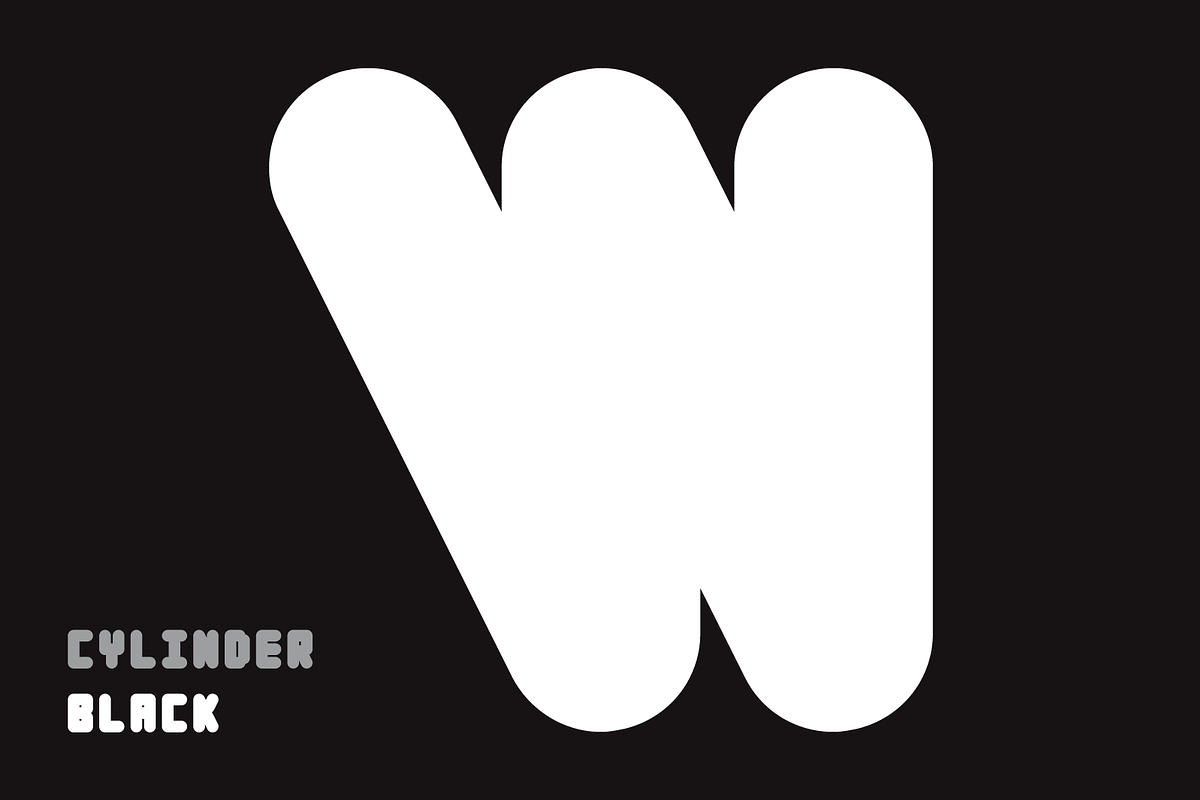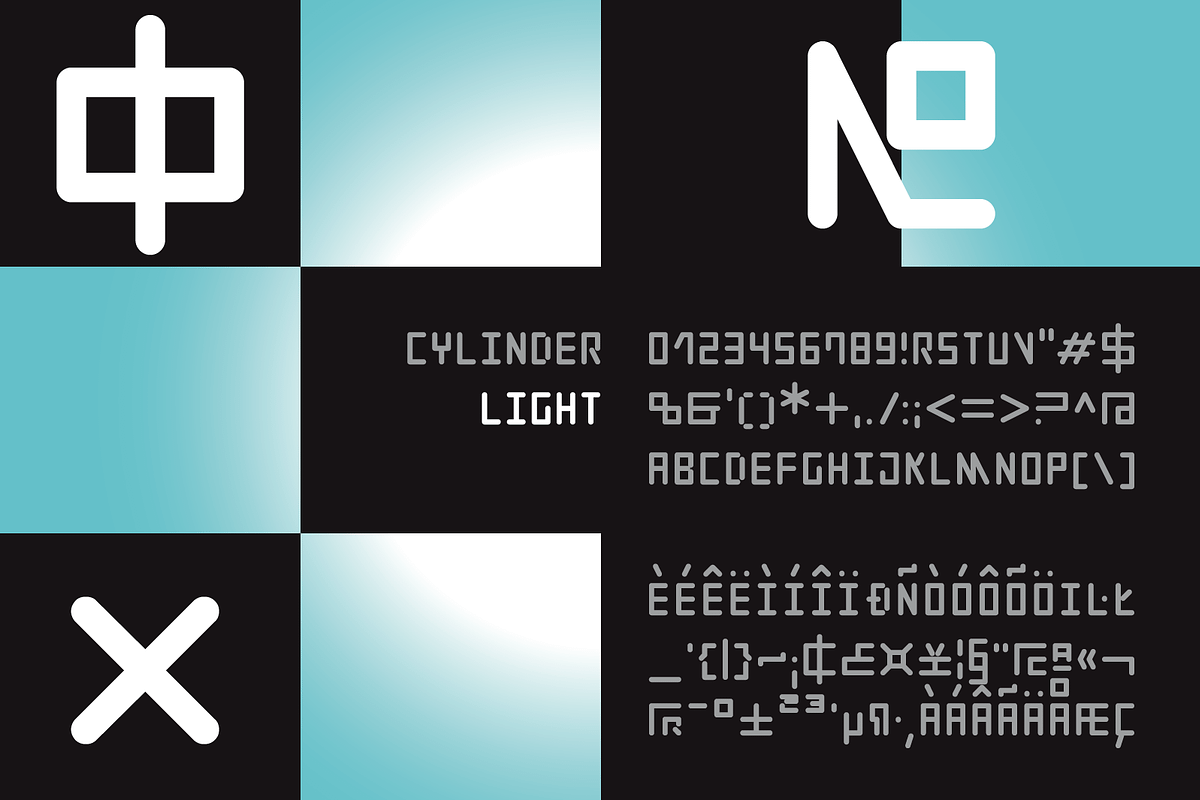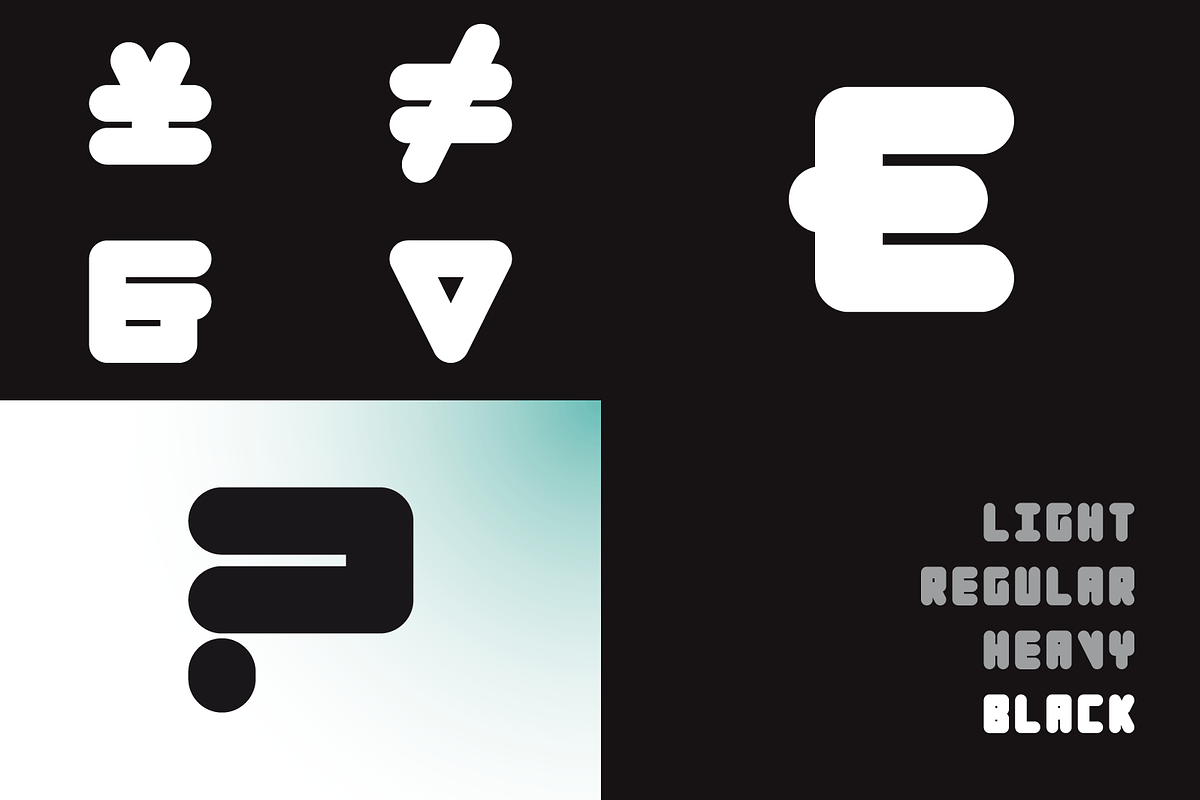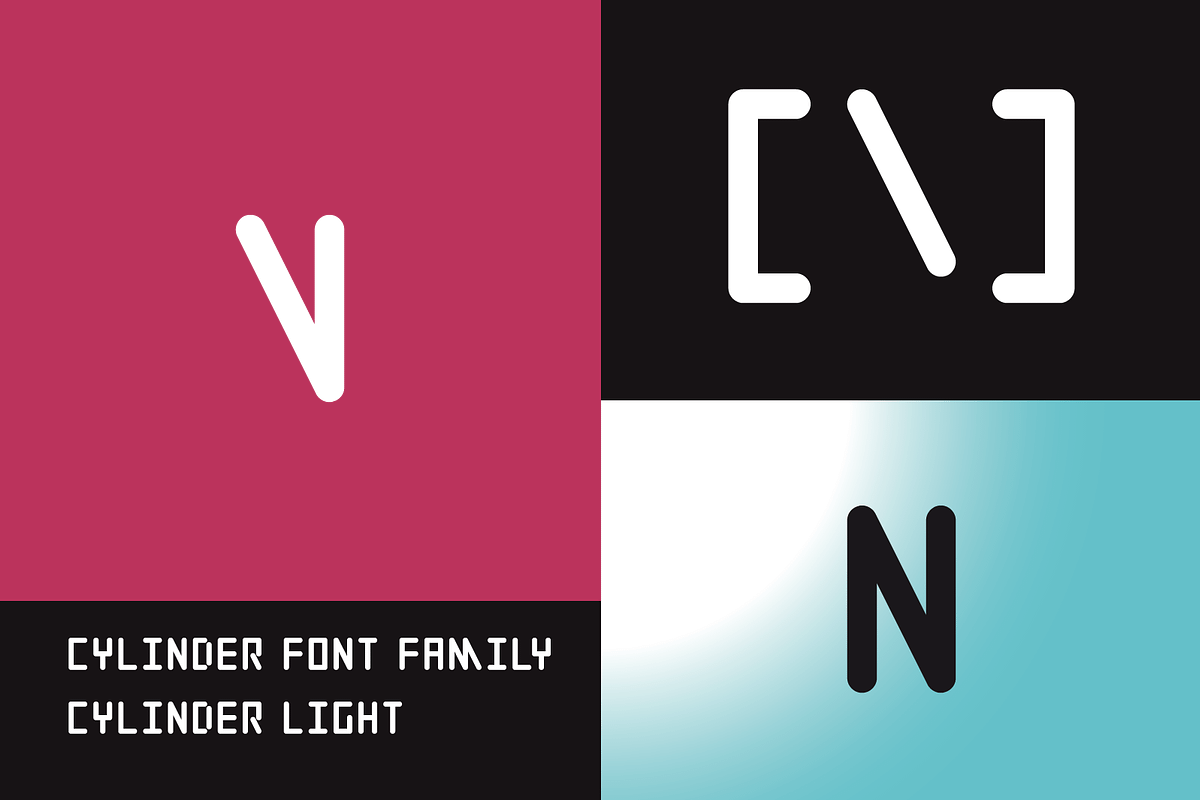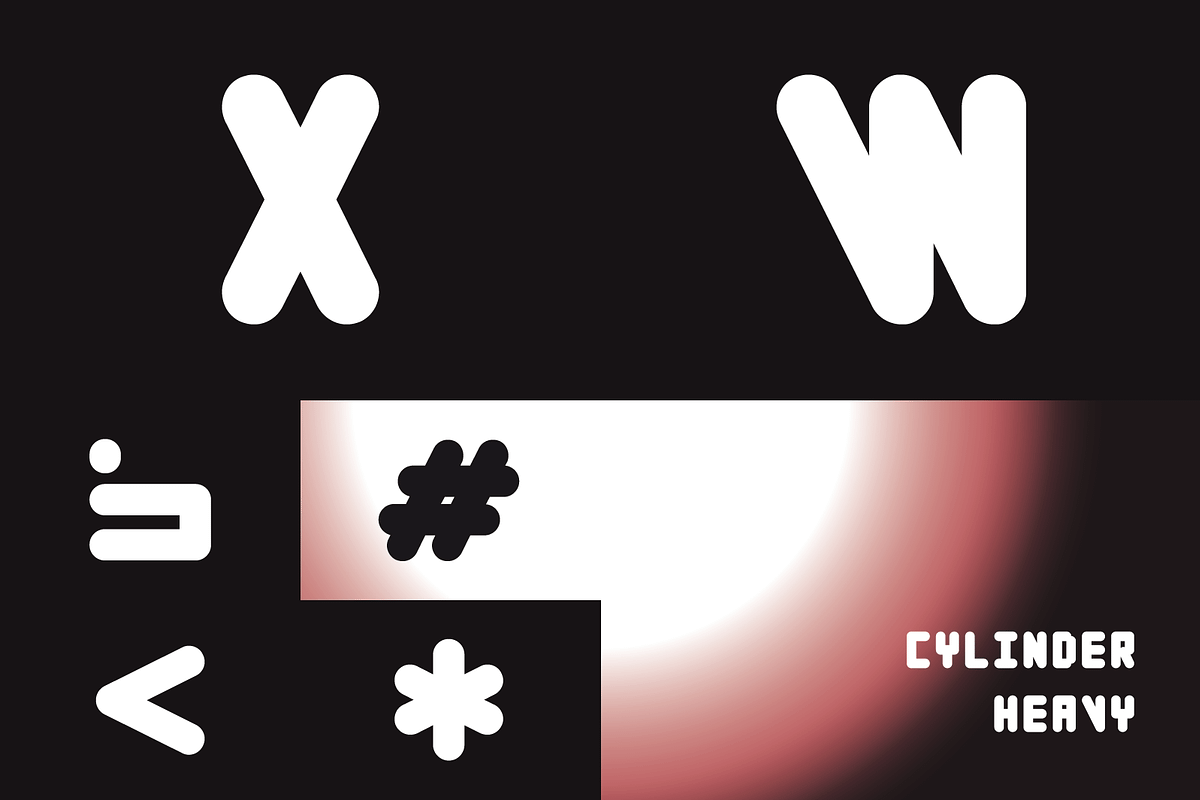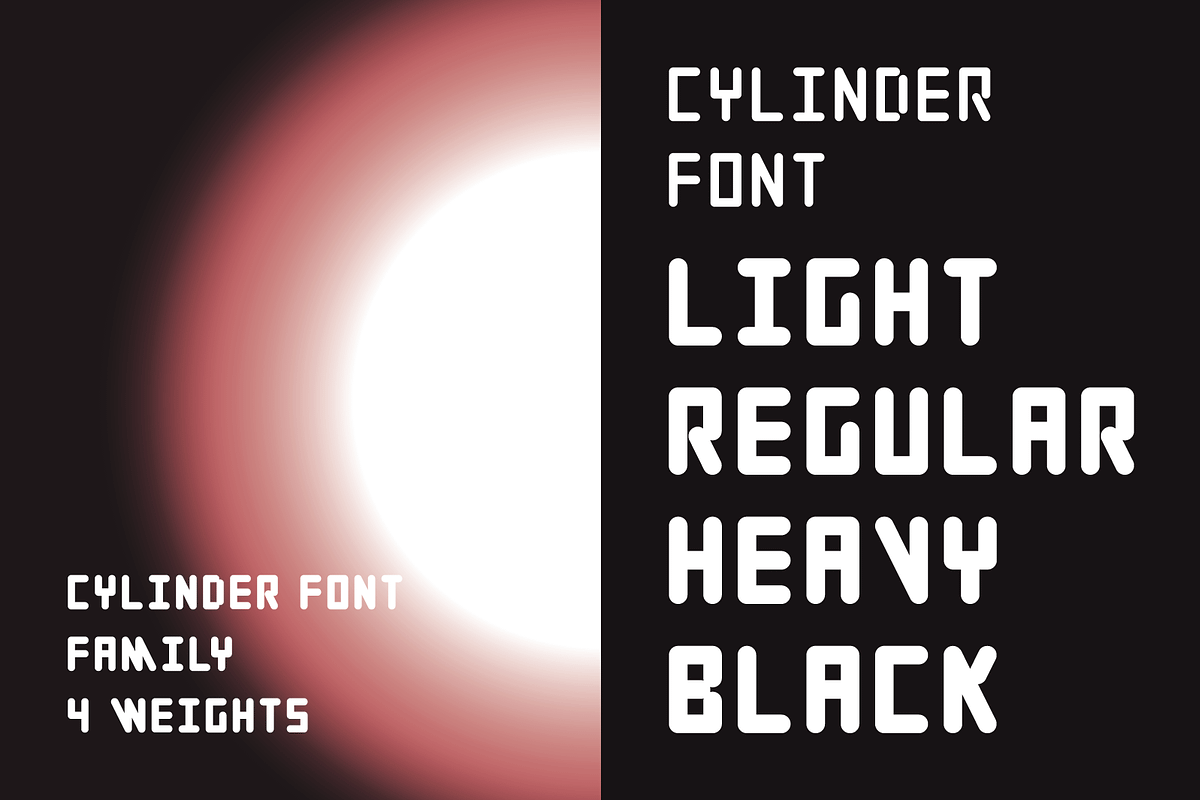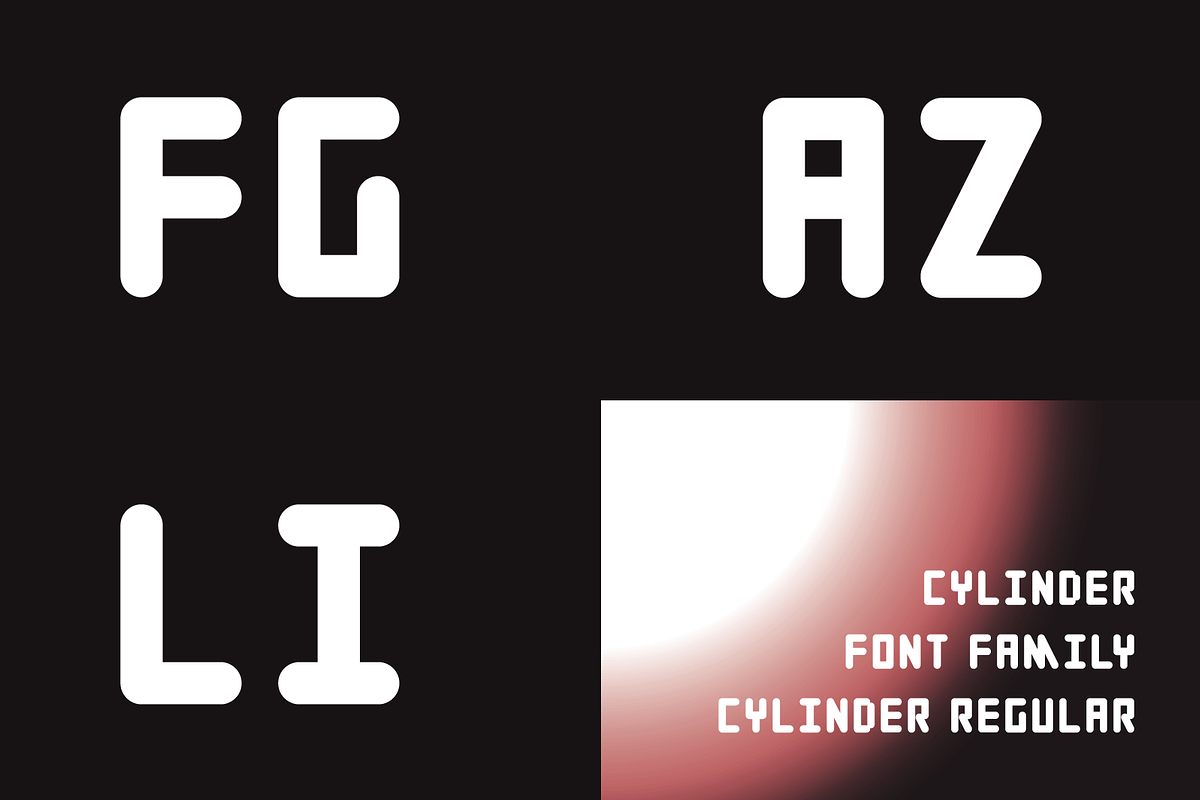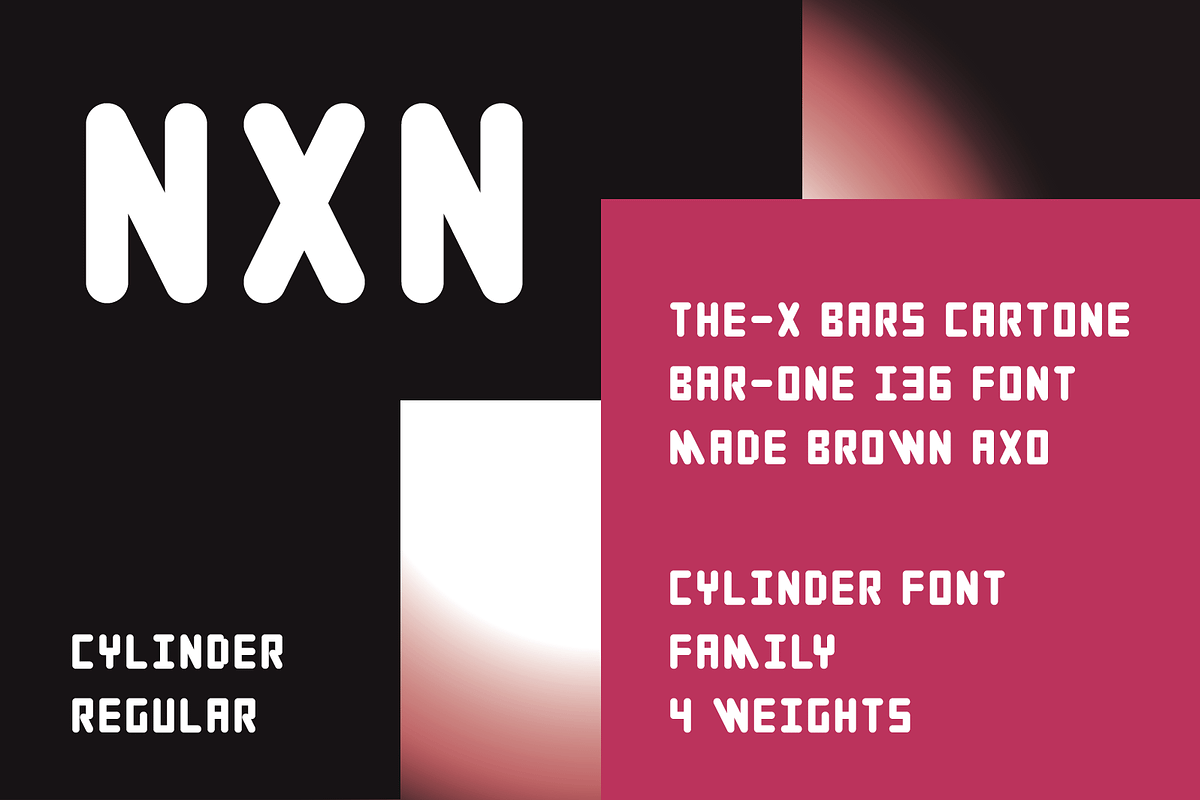
Cylinder Font Family | 4 Styles
4 (FOUR) fonts included:
Use for awesome branding, illustrations, posters, logos, t-shirts, headlines, and much more..
A unique font containing uppercase characters, numerals and a large range of punctuation (over 220 glyphs).
- Cylinder Light
- Cylinder Regular
- Cylinder Heavy
- Cylinder Black